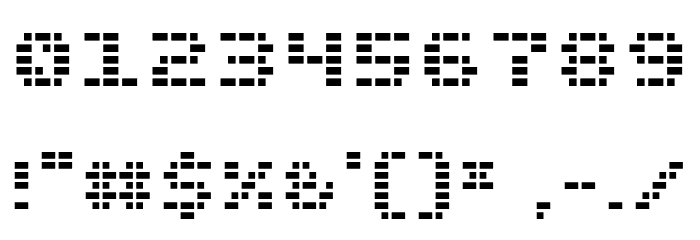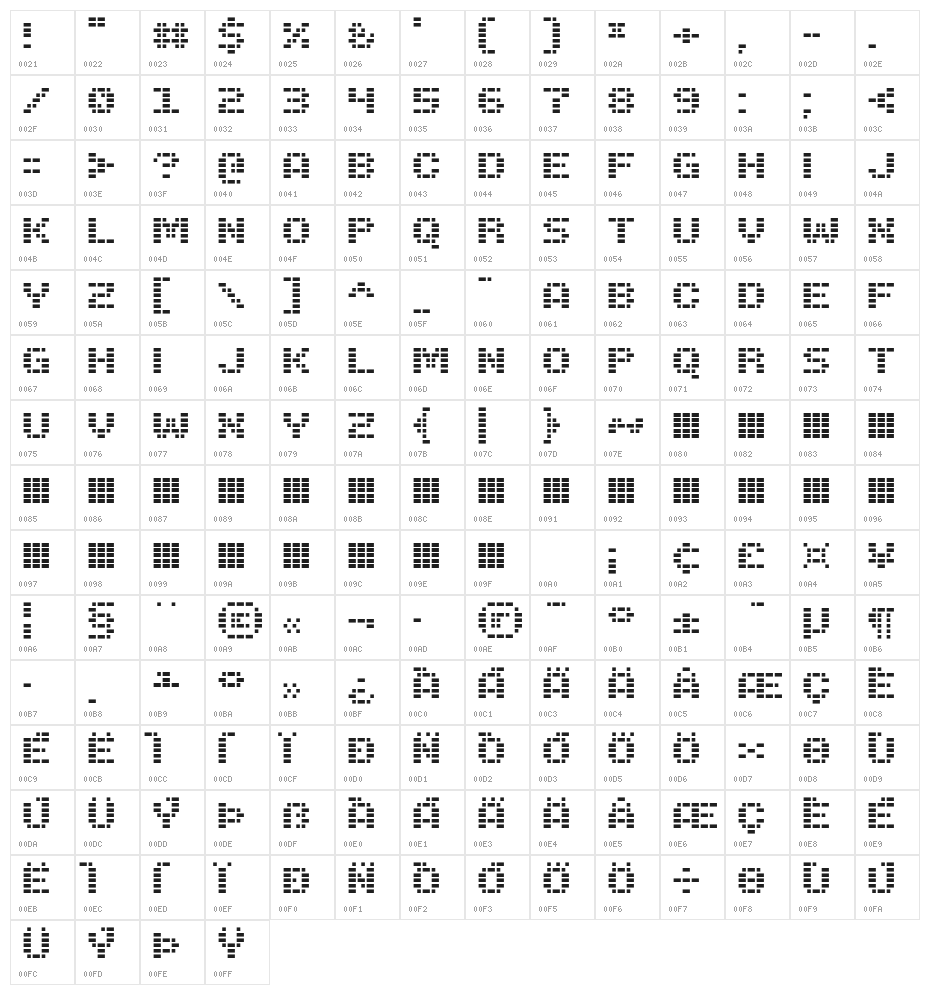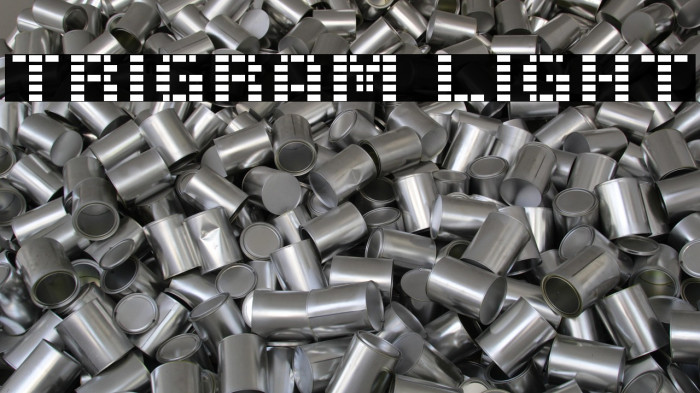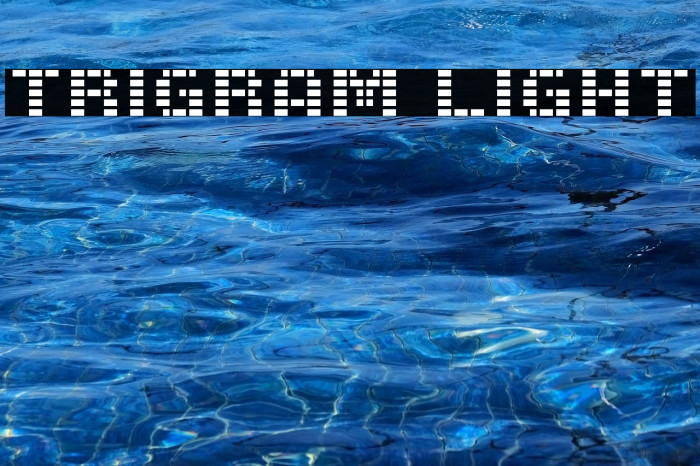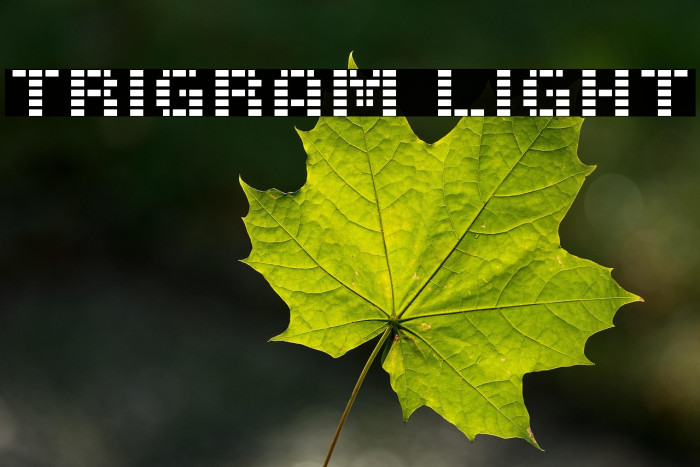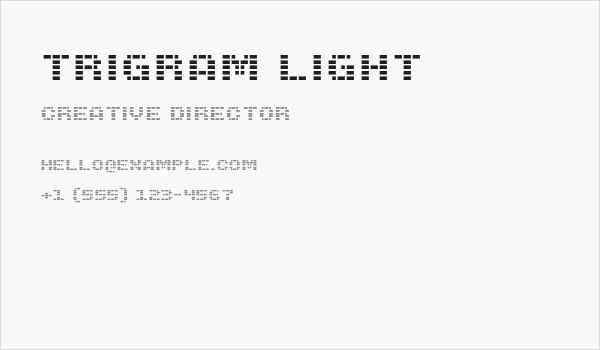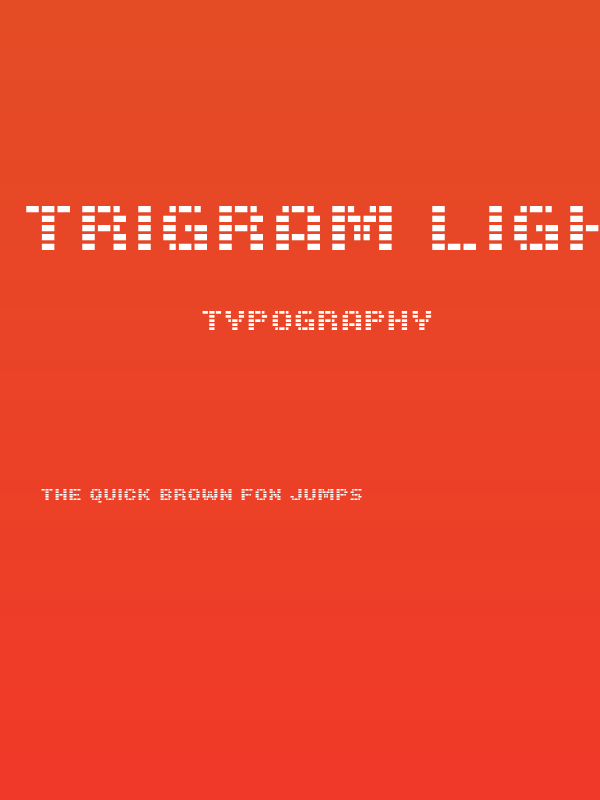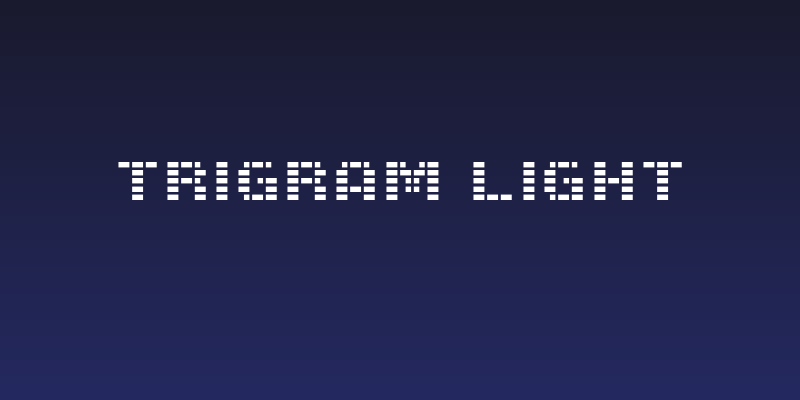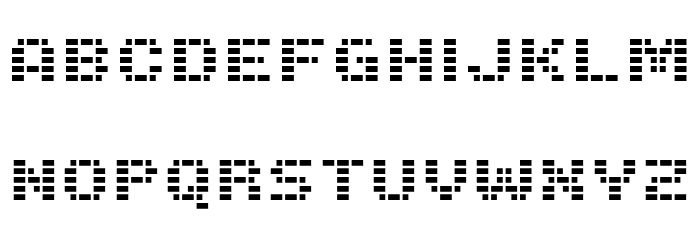
Trigram Light Font
Trigram Light Description
This font features a unique and modern design, characterized by its use of small square dots to form each character. The geometric and pixelated style gives it a digital and futuristic appearance, reminiscent of early computer displays or digital signage. Each letter and number is constructed with precision, maintaining uniformity and consistency across the entire set. The font's distinct style makes it stand out, offering a bold and eye-catching look that is both playful and innovative. Its grid-like structure provides a sense of order and clarity, making it suitable for creative projects that require a modern and tech-savvy aesthetic.
| Use Case | Logos, Headlines, Digital displays |
| Proposed Projects | Ideal for digital art, tech-themed designs, video game graphics, and modern advertising. |